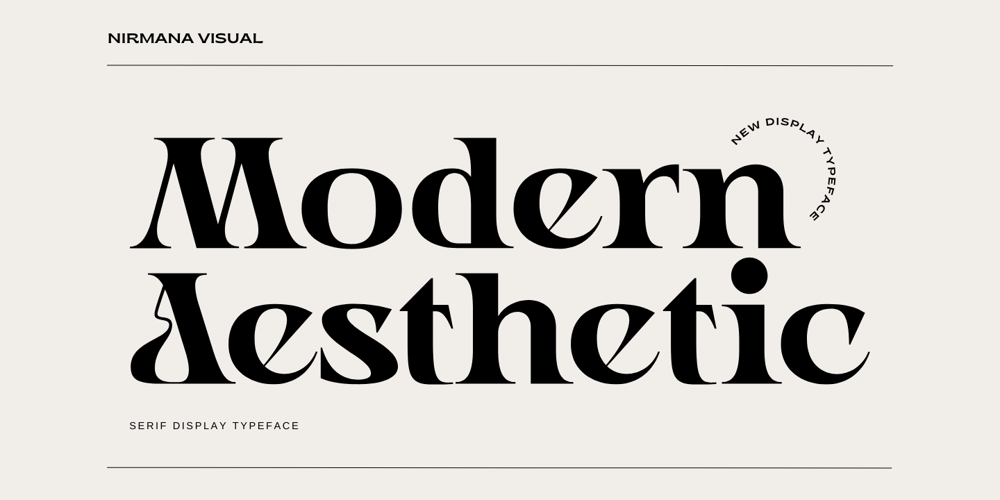
Modern Aesthetic
Modern Aesthetic font
Modern Aesthetic Font Family was designed by Sigit Dwipa and published by Nirmana Visual. Modern Aesthetic contains 1 styles and family package options. Modern Aesthetic Inspired by Renaissance Design Era. Modern Aesthetic offers beautiful typographic harmony for a diversity of design projects, including logos & branding, social media posts, advertisements & product designs.